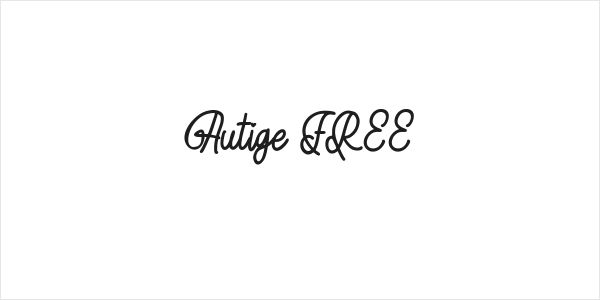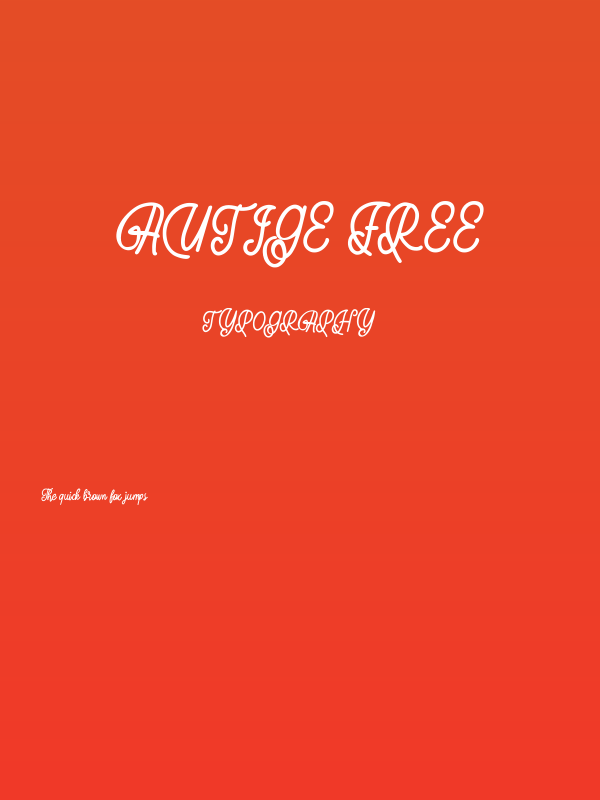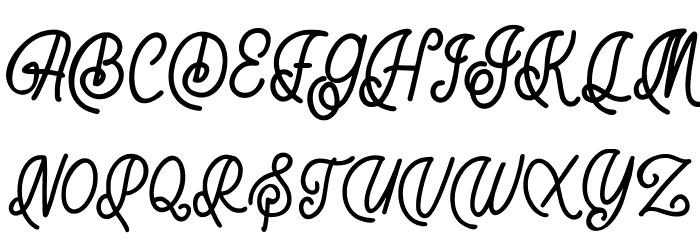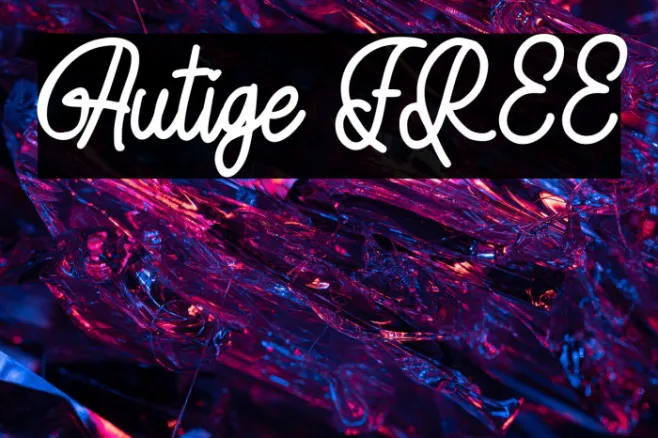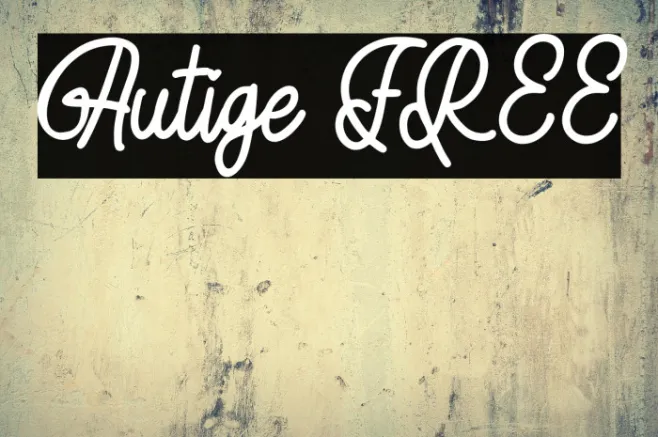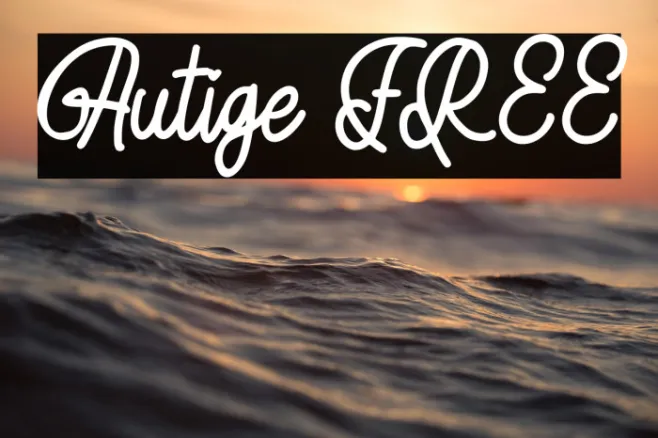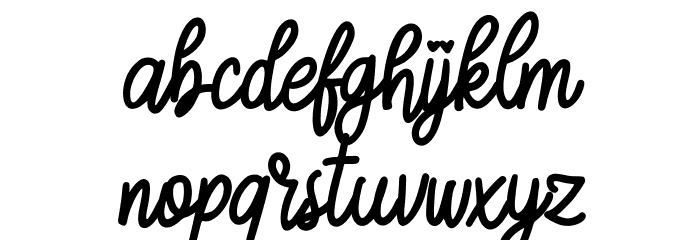
Autige FREE Font
Autige FREE Description
This font features a flowing, cursive style with elegant loops and swirls, giving it a sophisticated and artistic appearance. The uppercase letters are characterized by their ornate and decorative flourishes, while the lowercase letters maintain a smooth and connected script. The font conveys a sense of elegance and creativity, making it suitable for artistic and formal applications. The numbers and special characters are designed to match the overall aesthetic, ensuring consistency across all characters.
| Proposed Projects | Ideal for wedding invitations, greeting cards, branding, and artistic projects. |